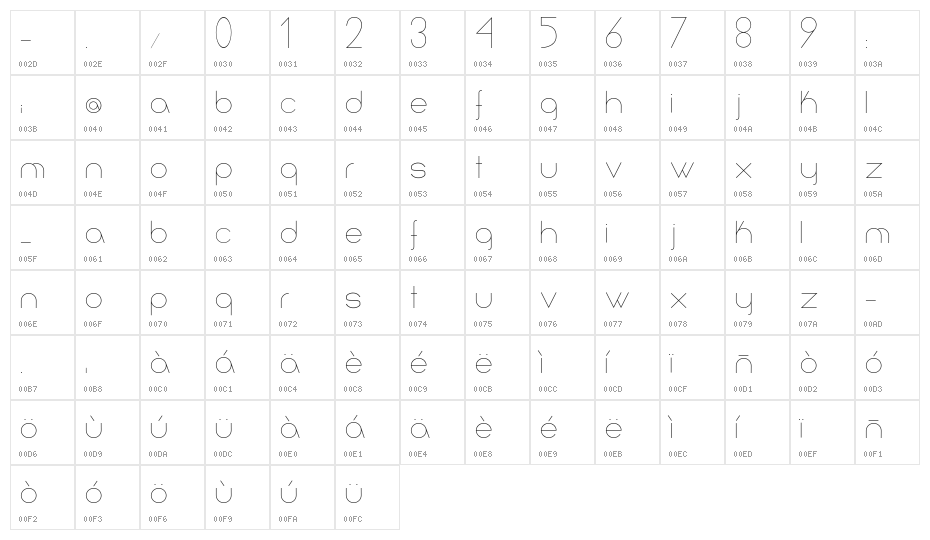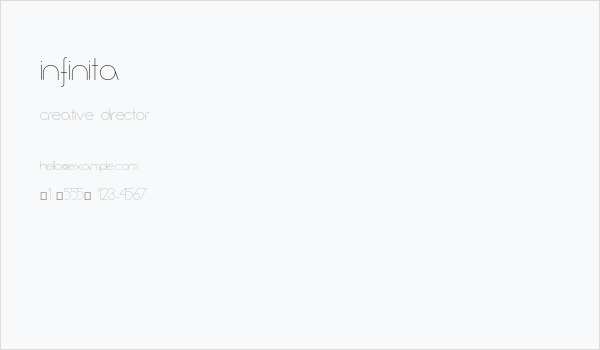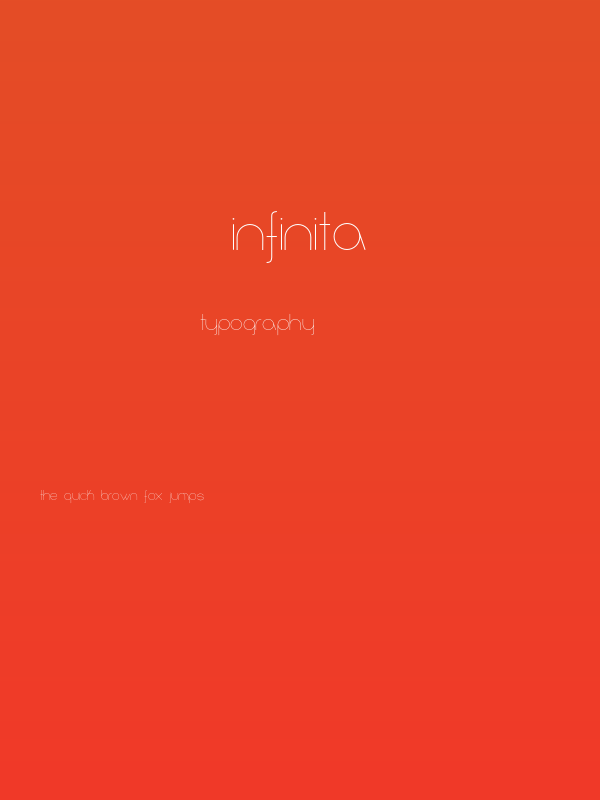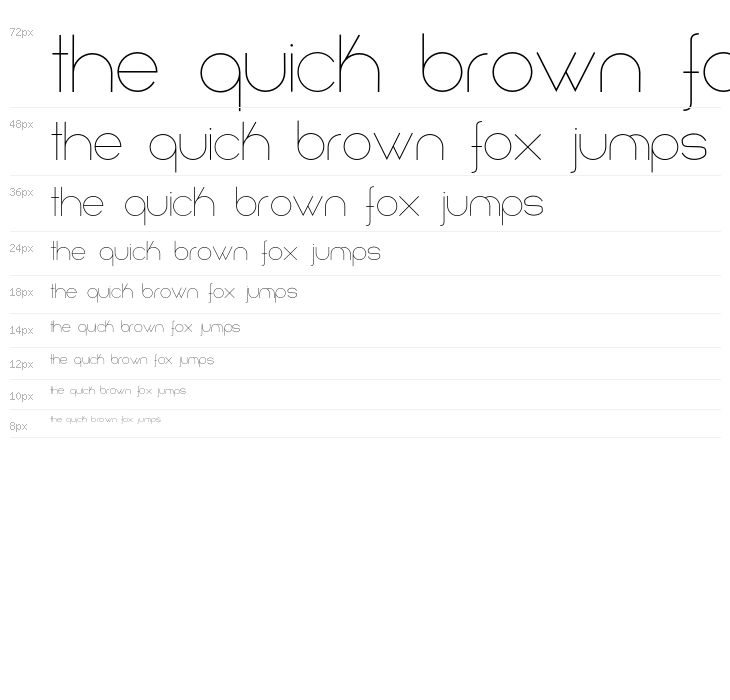
Infinita Font
Infinita Description
This font features a sleek, modern design with a minimalist aesthetic. The characters are composed of thin, uniform lines that create a sense of elegance and sophistication. The uppercase and lowercase letters maintain a consistent height, contributing to a harmonious appearance. The numerals are designed with the same thin lines, ensuring a cohesive look throughout. The special characters are simple and unobtrusive, fitting seamlessly with the overall style. This font's clean lines and geometric shapes make it ideal for contemporary design projects.